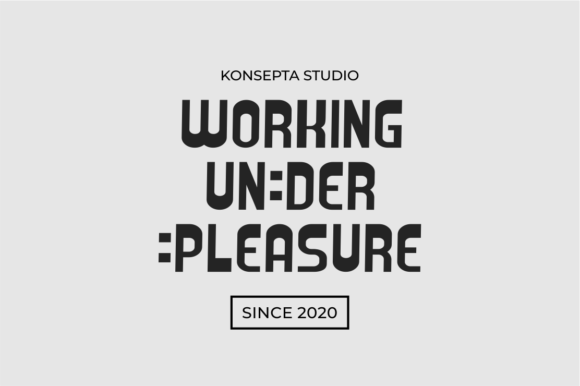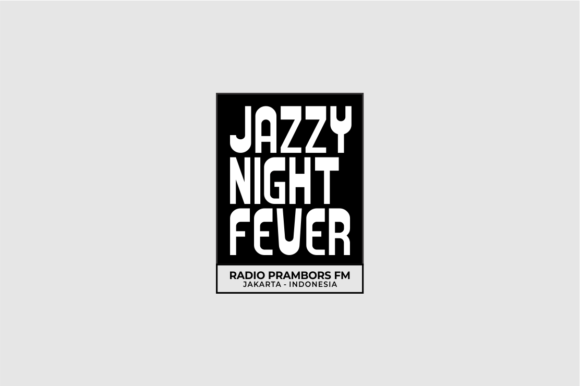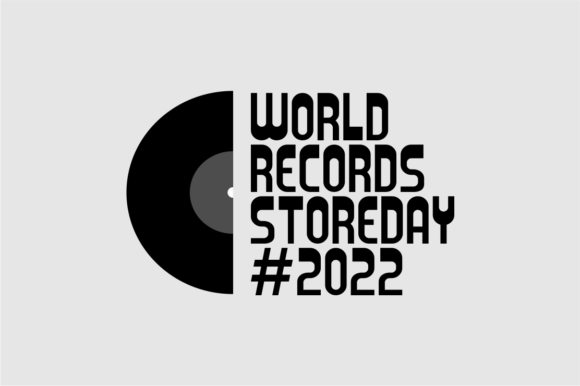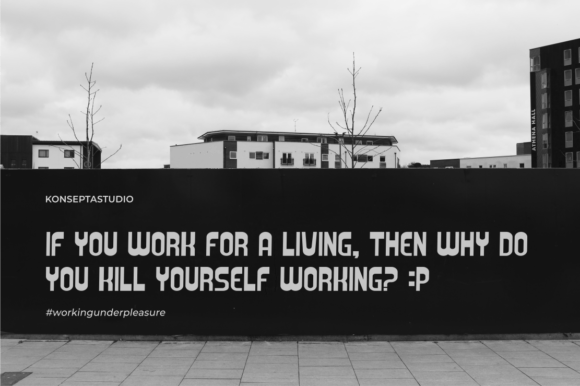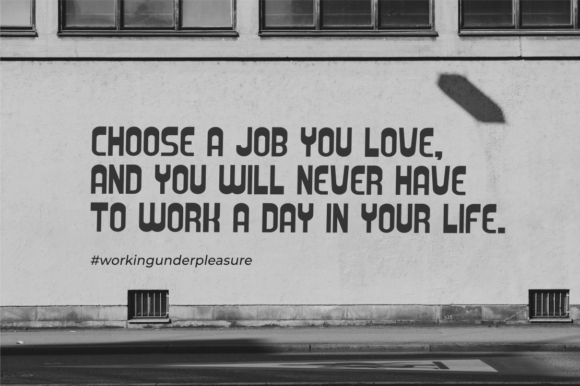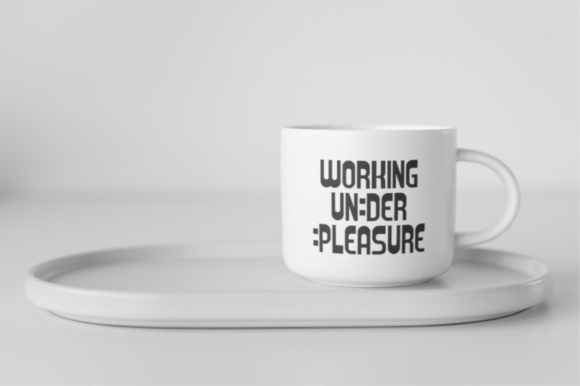
Introduction to Purwarupa Font
Imagine yourself in a creative studio, surrounded by the hum of a printer and the glow of a computer screen. The task at hand is to create an eye-catching poster for an upcoming event, and the perfect font is just what you need to make it stand out. That’s where the Purwarupa Font comes in – a retro-style headline display font that’s as cool as it is unique.
This versatile font is not just a design resource, but a valuable tool for designers looking to add a touch of sophistication to their creative projects. With its high quality design and transparent background, the Purwarupa Font is perfect for those who want to make a statement without overwhelming their audience.
Purwarupa Font Key Features
- Unique and creative design that can add a touch of elegance to any project, making it an excellent choice for designers.
- Perfect for use in logos, branding materials, and other design elements that require a high level of sophistication.
Honest Review: Purwarupa Font
I recently stumbled upon the Purwarupa Font and I must say it’s a fantastic addition to my design resource library. This free download has been a game-changer for my creative projects. The transparent background is a huge plus, allowing for seamless integration into any design.
- ✨ High quality typography: The Purwarupa Font boasts stunning letterforms that elevate any text-based design. It’s perfect for headings, titles, or body text.
- ✨ Unique style: The font’s distinctive aesthetic sets it apart from more common fonts, making it ideal for projects that require a touch of personality.
While the Purwarupa Font is an excellent choice, there are some limitations to consider: ⚠️ Limited language support: The font may not be optimized for languages with non-Latin scripts, which could be a concern for designers working on projects that require multilingual support.
Overall, I’m thoroughly impressed with the Purwarupa Font. Its unique style, high quality typography, and free availability make it a valuable resource for any designer working on creative projects. If you’re looking for a versatile font that can add some flair to your designs, I highly recommend giving it a try.
The Purwarupa Font is ideal for creative projects, including logos, branding materials, and marketing collateral. Its high-quality design makes it perfect for presentations, posters, and other visual aids.